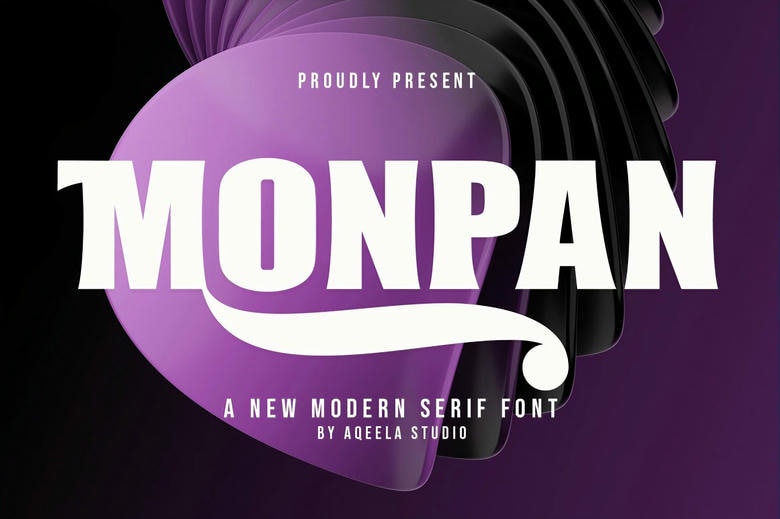
Monpan Font
Monpan is a modern serif font that will give you refined look and readability as an added touch of elegance with smooth and straight line, strong contrast, and calligraphic curves. Legendarily sophisticated and modern,
Monpan suitable for branding, Editorial designs, luxury packaging and headlines. This gives it a very unique attribute which set it apart from other chair designs in that it balance both form and function very appealing to designers.
Monpan Serif Font